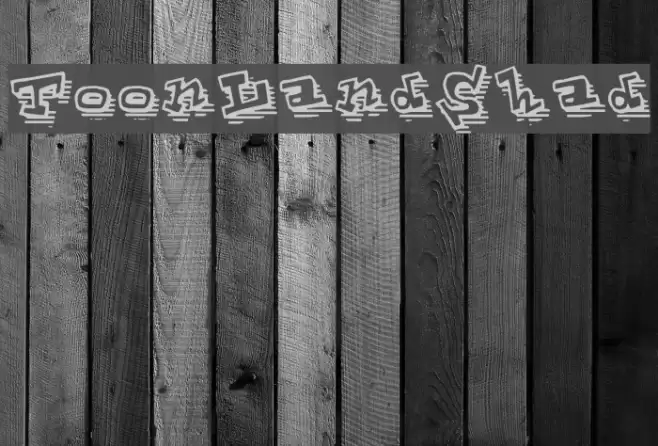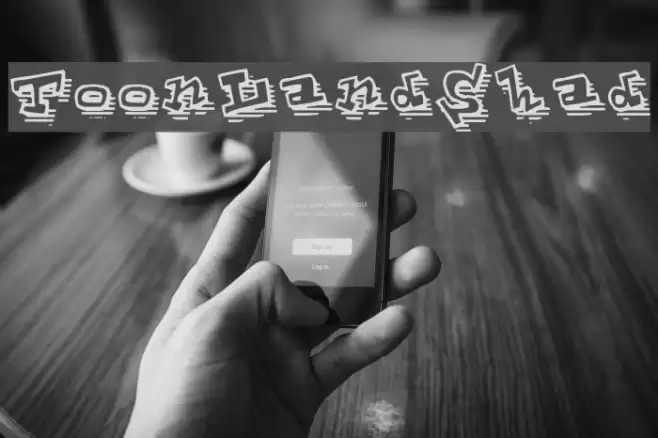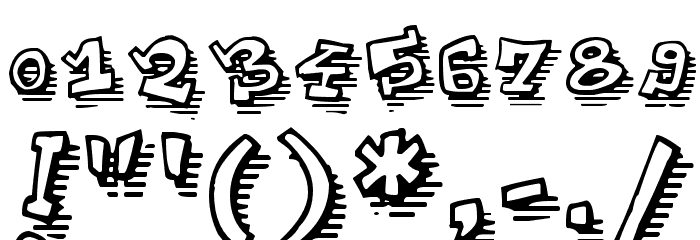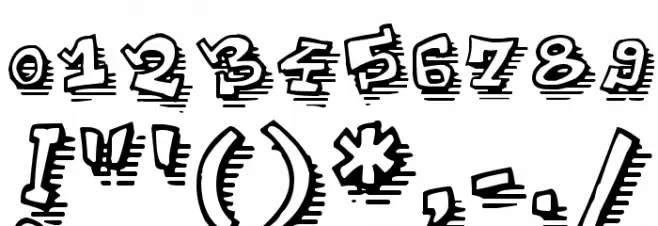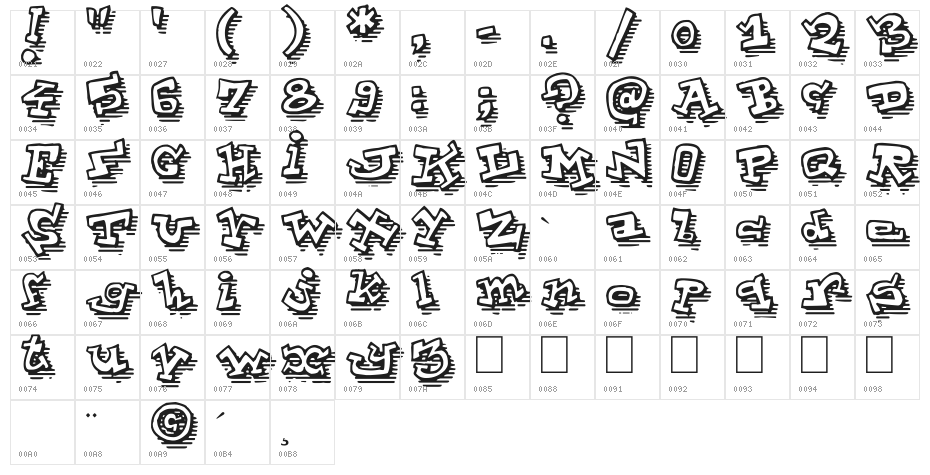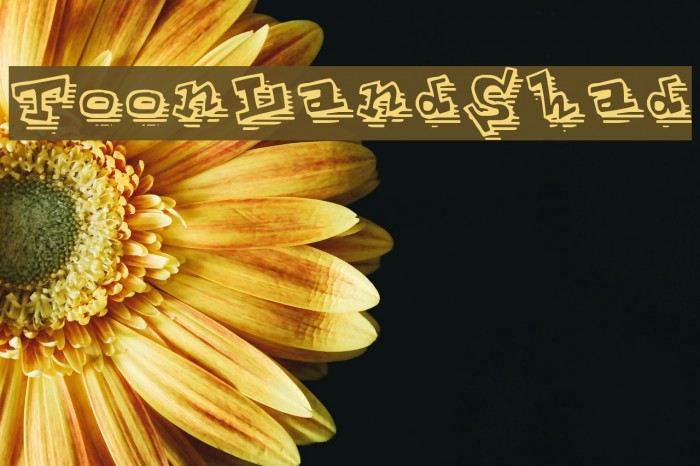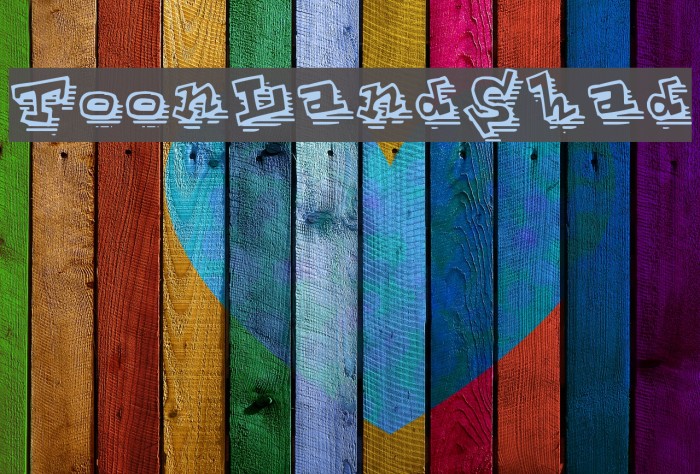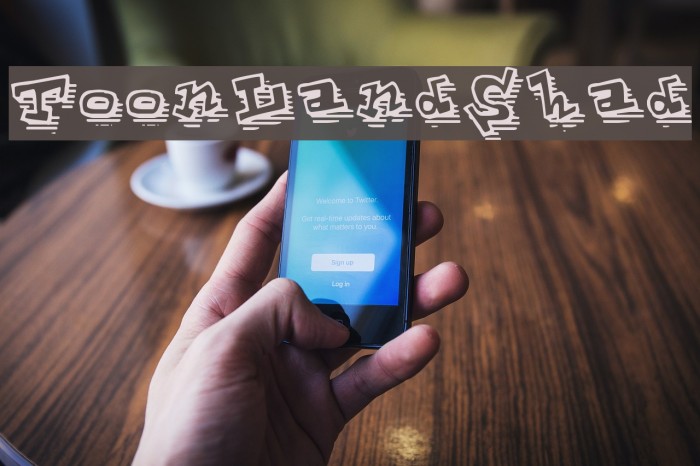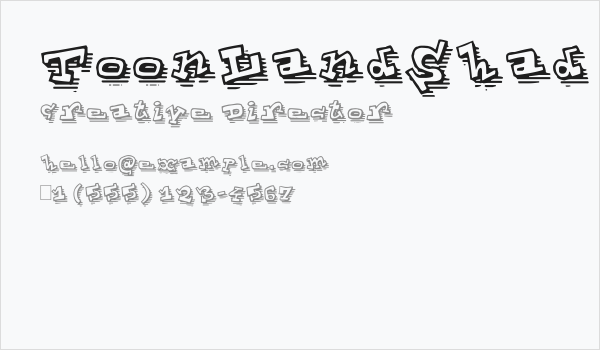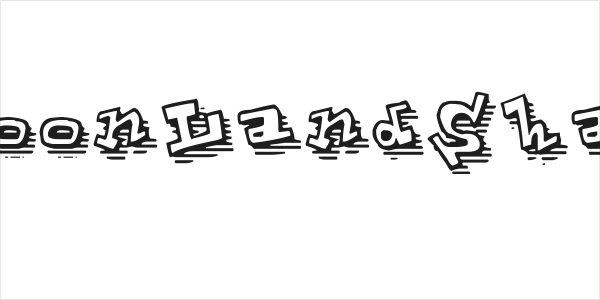
ToonLandShad Font
ToonLandShad Description
This playful and energetic font features bold, cartoon-like characters with a distinct shadow effect that adds depth and dimension. Each letter is uniquely stylized with exaggerated curves and angles, creating a lively and dynamic appearance. The font's whimsical nature is emphasized by its irregular shapes and varying line thicknesses, which contribute to its overall animated feel. The shadowing beneath each character enhances its three-dimensional look, making it stand out on any page. This font is perfect for projects that require a fun and engaging visual element, capturing attention with its vibrant and quirky design.
A bold, cartoon-style font with playful shadows and dynamic shapes from Uncategorized fonts.
- Proposed Projects: Ideal for comic books, children's books, playful branding, posters, and video game graphics.